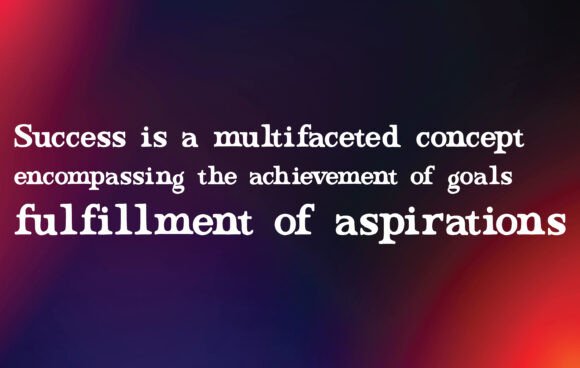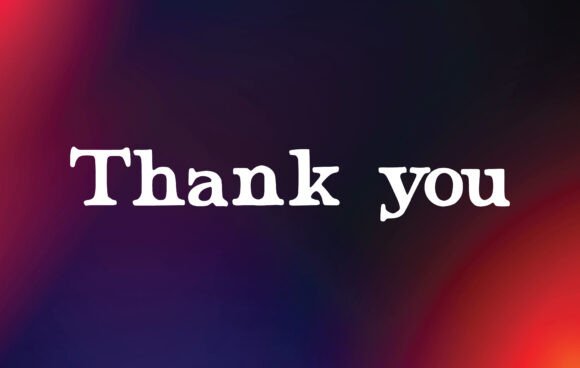
The Aubrieta Font: Your New Go-To for Creative Projects
I’ll never forget the time I was working on a client’s wedding invitation design. The theme was elegant and vintage, and I needed a font that would capture that essence. After hours of scrolling through font libraries, I stumbled upon the Aubrieta Font. It was love at first sight! ✨ The perfect blend of style and versatility had finally landed in my lap. In this article, I’ll share with you why Aubrieta has become a staple in my design collection and how you can make the most of it in your creative projects.
- ✅ Easy to read, even at small sizes
- ✨ Beautifully crafted for both titles and body text
- 🎨 Highly versatile, suitable for a wide range of creative projects
- 💻 Works seamlessly on digital and print platforms
While Aubrieta is an exceptional font, there are a few minor things to keep in mind: 🤔
- ⚠️ Limited availability of stylistic alternates (but what’s available is beautifully designed)
The Story Behind Aubrieta
Aubrieta was designed with the intention of creating a beautiful, versatile font that could be used across various creative projects. The designer aimed to craft a font that would be both stylish and easy to read, making it perfect for designers, crafters, and creative hobbyists alike.
Q: What makes Aubrieta suitable for both titles and body text?
A: Aubrieta’s clear and elegant design makes it perfect for both titles and body text. Its versatility allows it to shine in various design contexts.
Q: Does Aubrieta support OpenType features?
A: Yes, Aubrieta supports various OpenType features, including ligatures and stylistic alternates. These features can enhance your designs and give them a unique touch.
Q: Is Aubrieta easy to read on digital screens?
A: Absolutely! Aubrieta is designed to be clear and legible, even on smaller screens. This makes it perfect for digital projects, from social media posts to website content.